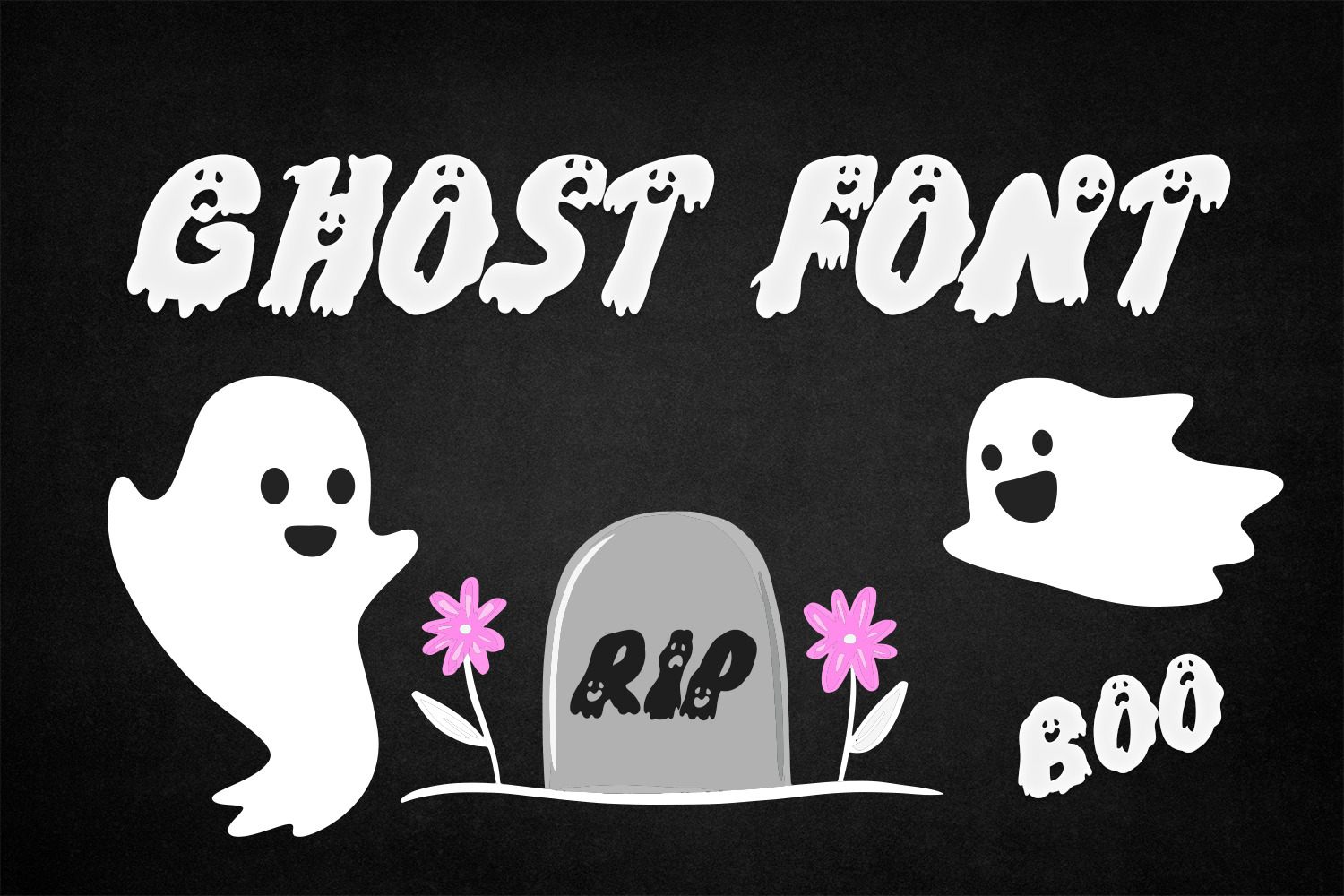
Ghost Font
Ghost is an incredibly unique and fun display font. A little bit quirky, this font will make each of your creative Halloween themed ideas stand out!